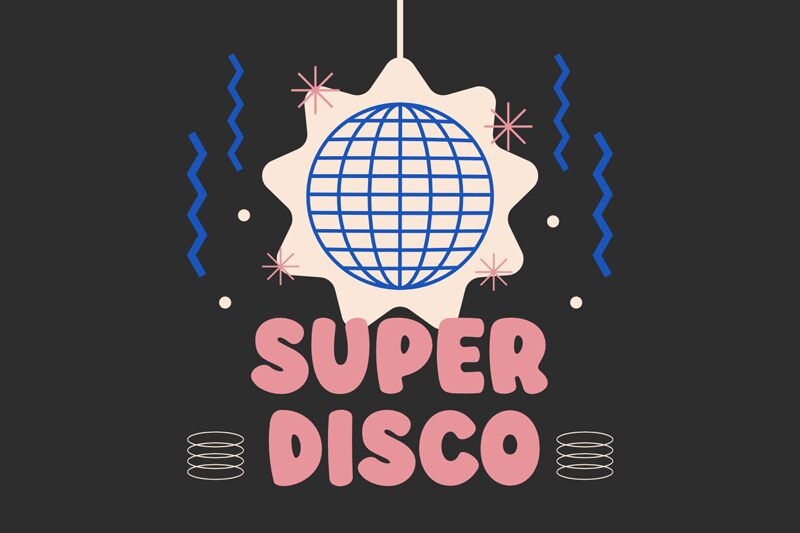
Super Disco
Super Disco, designed by fsuarez913, is not your average display font-it's a visual embodiment of the electric boogie nights and the whimsical world of cartoons. With its extra-bold weight, this font stands out with an undeniable assertiveness while keeping a playful cartoon aesthetic that can't help but bring a smile to your face.
The curves and contours of Super Disco evoke the effortless groove of roller disco, making it an excellent choice for projects that aim to capture the spirit of fun and nostalgia. Its suitability stretches from lively party invitations to bold headings in children's books, from eye-catching logos to dynamic video game interfaces.
Embrace the exuberance of Super Disco in your next creative endeavor and watch as it infuses your project with its unapologetic charm and vivacity.